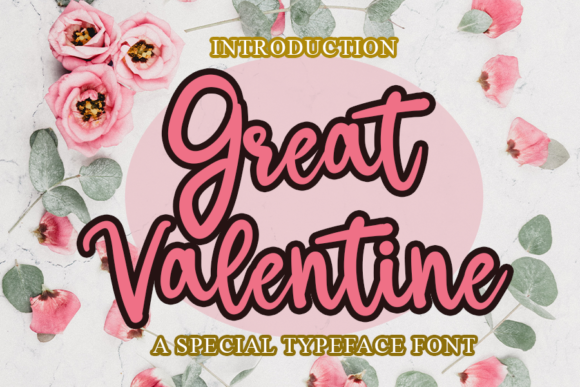
The Perfect Script for Your Heartfelt Designs
The Great Valentine Font is a beautiful, delicate script font that exudes romance and elegance. Its versatility makes it perfect for a wide range of applications, from greeting cards to headlines, and everything in between. Whether you’re a seasoned designer or just starting out, this font is a valuable addition to your toolkit.
Great Valentine Font Key Features
- Font Family: Great Valentine
- Unique Characteristics: Hand-drawn, cursive, romantic, and elegant design; perfect for Valentine’s Day, wedding invitations, and love-themed designs
Great Valentine Font Review
- The font is beautifully crafted, with a mix of elegance and playfulness that makes it perfect for Valentine’s Day-themed designs.
- The letterforms are smooth and well-connected, making it easy to read, even at smaller font sizes.
- The font includes a wide range of characters, including international characters, which is a plus for designers who work with clients from diverse backgrounds.
- The font is a bit too sweet and cliche for my taste, which might make it feel overused in some designs.
- The font might not be the best choice for designs that require a more serious or professional tone.
Overall, I think the Great Valentine Font is a great choice for designers who need a fun and playful font for Valentine’s Day-themed designs. While it has some limitations, its beauty and customization options make it a worthwhile addition to any designer’s toolkit.
The “Great Valentine Font” is a romantic and elegant font, making it perfect for Valentine’s Day-themed designs, wedding invitations, and romantic gift tags.